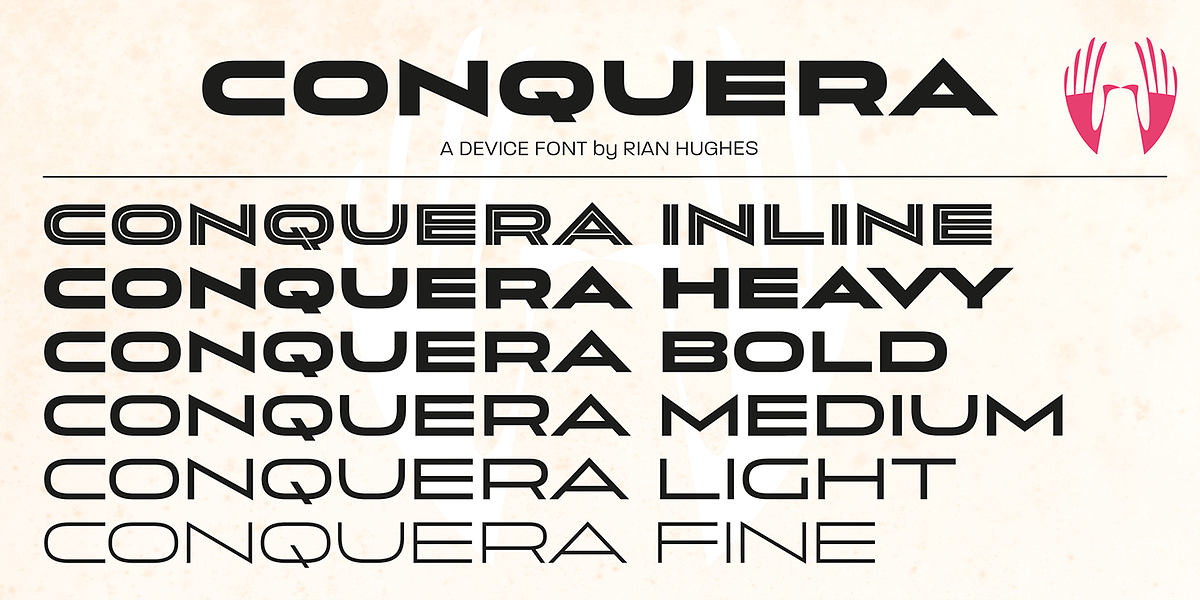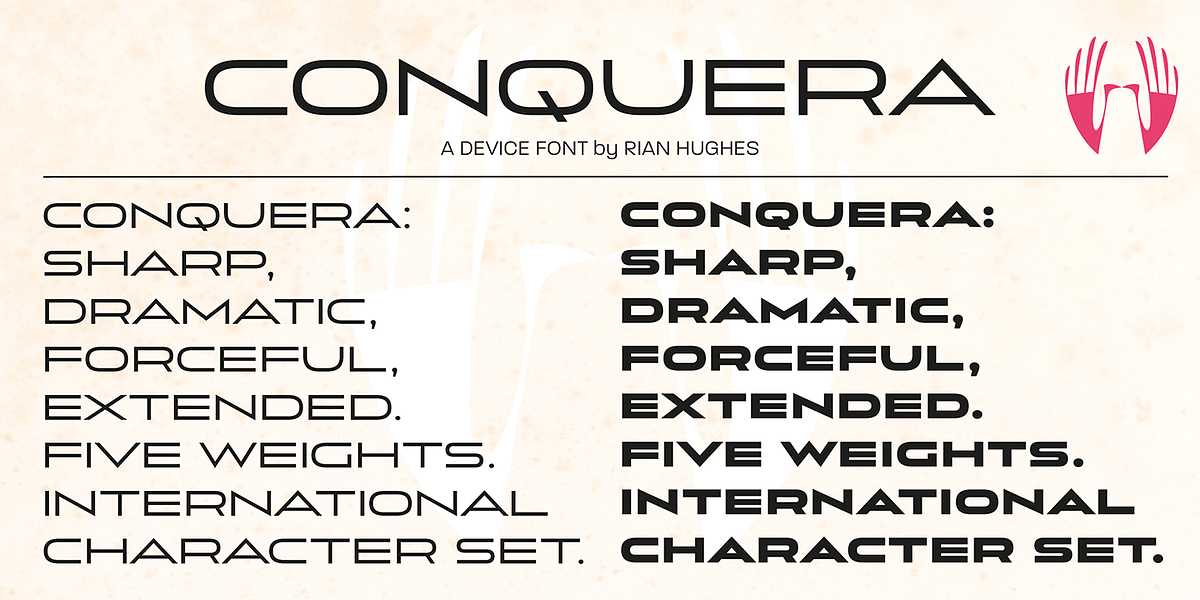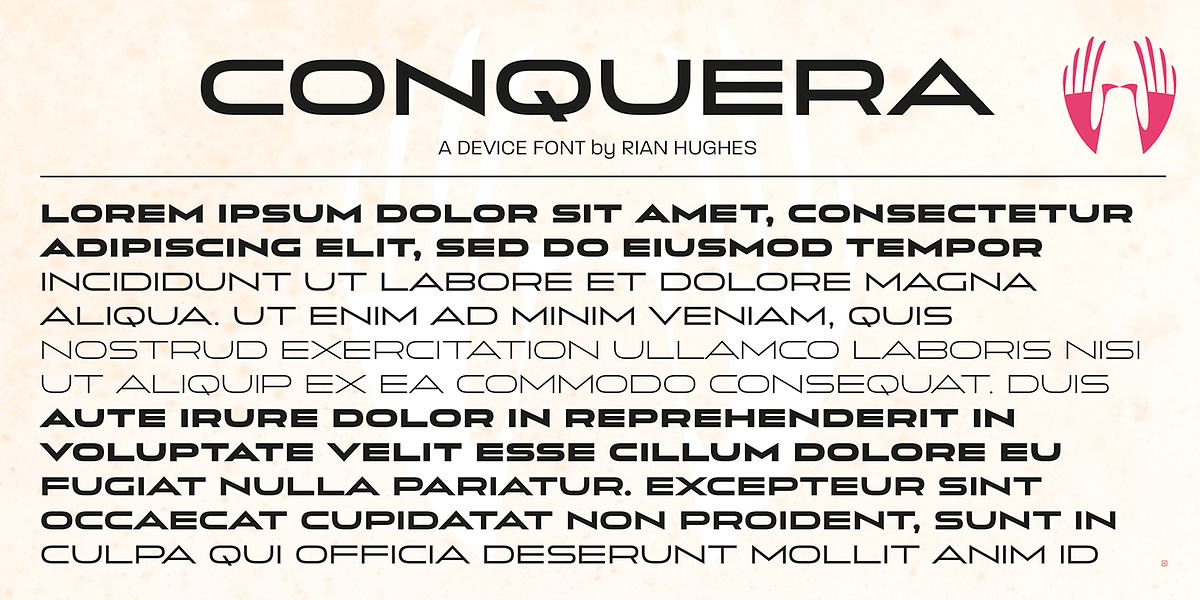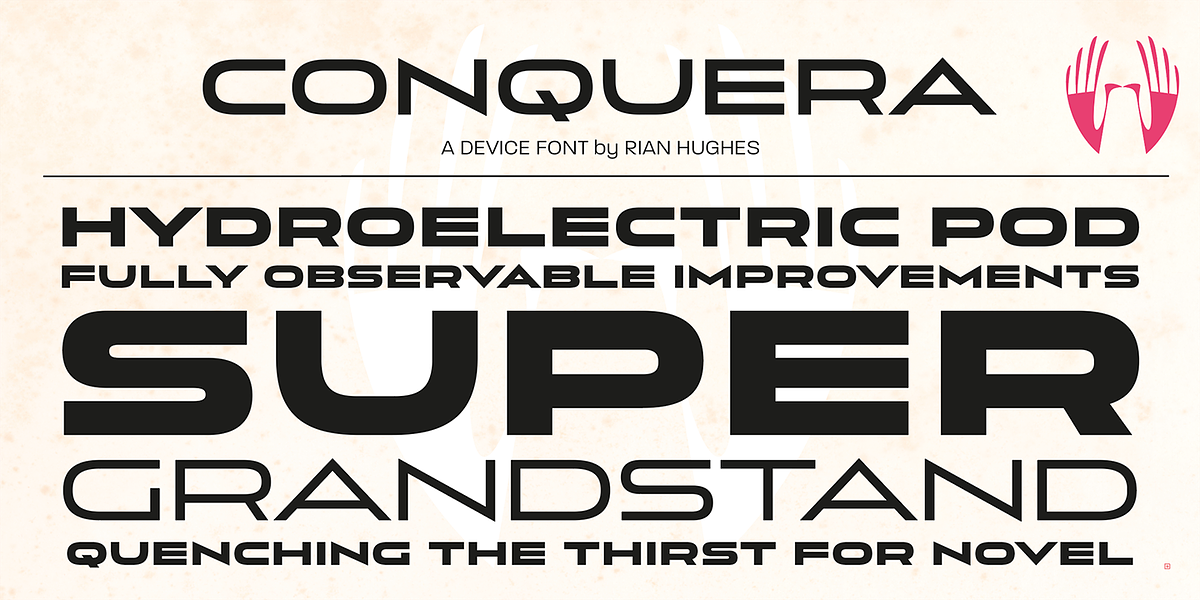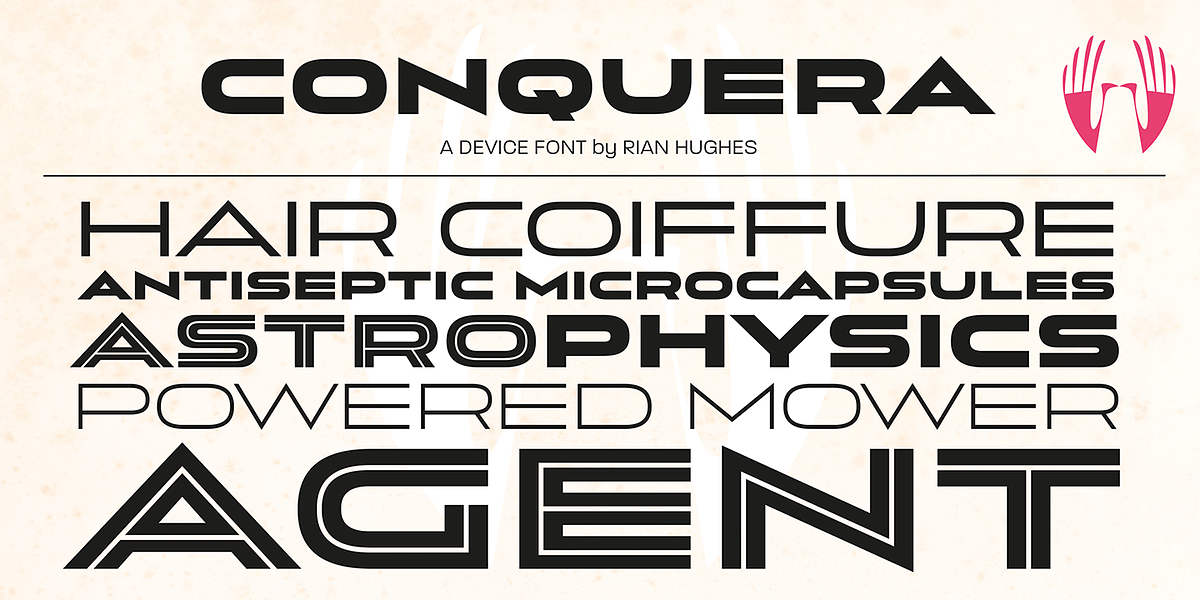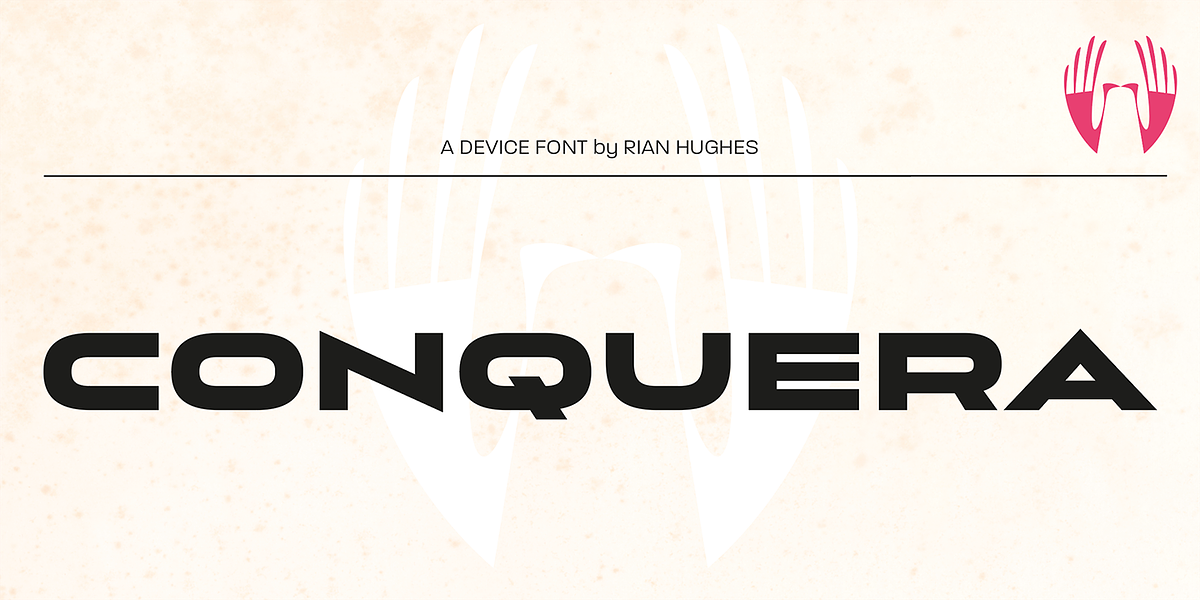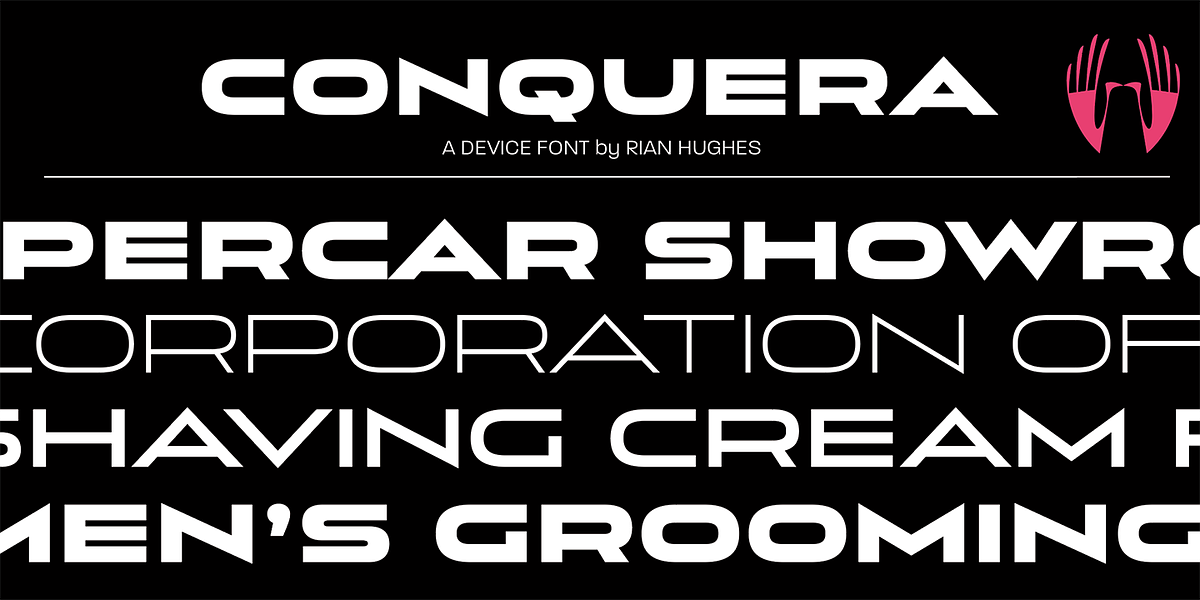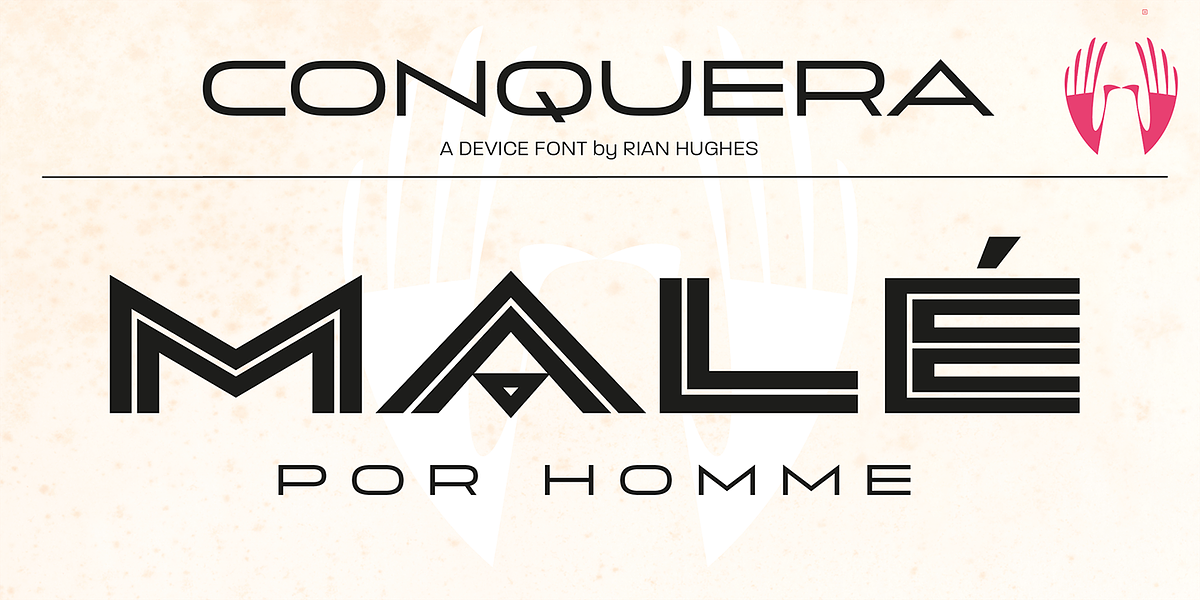
Conquera
Conquera is a caps-only geometric sans-serif font characterized by its angled strokes and pointed vertices. This gives it a stylish and masculine appearance, suitable for branding luxury goods and high-end technology. It comes in five weights plus an inline version, offering versatility for different design needs.